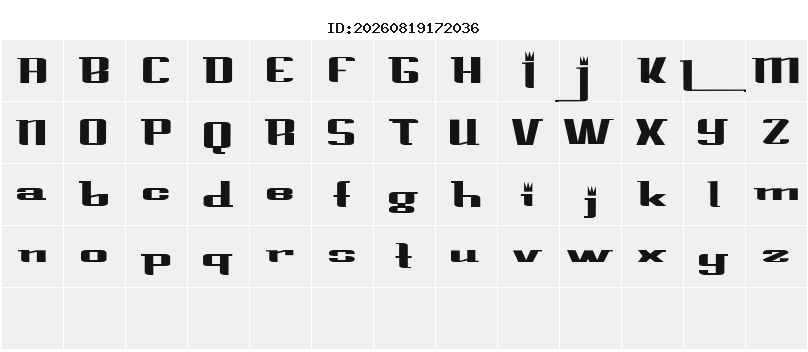
SiLverLux Preview
• Font Name: SiLverLux
• Font ID: SiLverLux
• Full Font Name: SiLverLux
• PostScript Name: SiLverLux
• Character Count: 249
About SiLverLux.ttf
SiLverLux.ttf is a modern, elegant sans-serif font designed for ultimate readability and visual harmony. Perfect for branding, headlines, web design, and print materials.